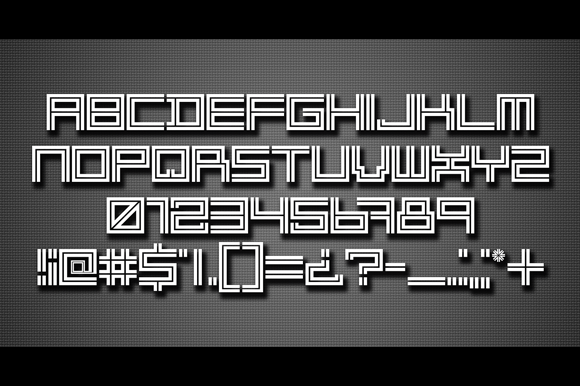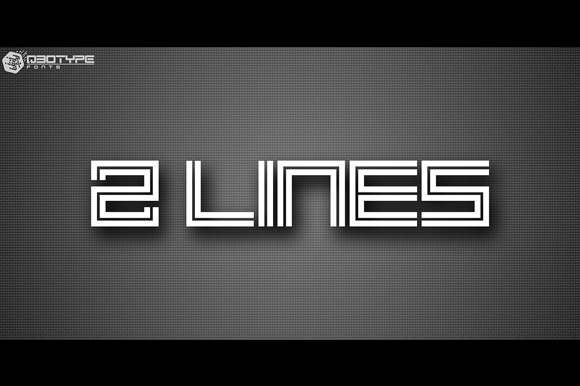
HomeSans Serif Fonts2 Lines Font Sans Serif Fonts 2 Lines Font FacebookXPinterestWhatsApp 2 Lines Font 1 of 2 About 2 Lines Font 2 Lines is a modern and simple sans serif font that features a double-lined style. DOWNLOAD NOW People also explored Kerling Script Angellonia Font Husband Romantic Font Dinosaur Font Grand Hotel Pro Yellowstone Font Sweet Home Font Our Goal Font Christmas Font 338 0 Tags2 Lines2 Lines Font Previous articleNadir FontNext articlePlaymates Font LEAVE A REPLY Cancel reply Comment: Please enter your comment! Name:* Please enter your name here Email:* You have entered an incorrect email address! Please enter your email address here Website: Save my name, email, and website in this browser for the next time I comment. Personal Use Free Sathscha Personal Use Free Read more about this font Rolling Door Personal Use Free Read more about this font Lovetle Personal Use Free Read more about this font Brittish State Personal Use Free Read more about this font BLOG To increase your work productivity, choose the most readable fonts. In today's fast-paced work environment, where digital communication and information consumption are integral to our daily routines, the choice of fonts can significantly impact... Top 10 Handwritten Fonts That Elevate Your Designs Elegant Wedding Invitation Fonts – Handwritten & Script Fonts Exploring Font Trends